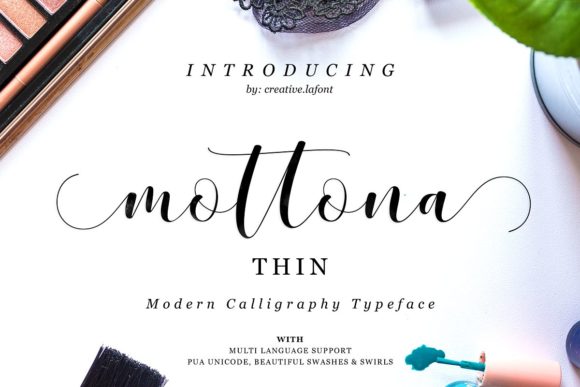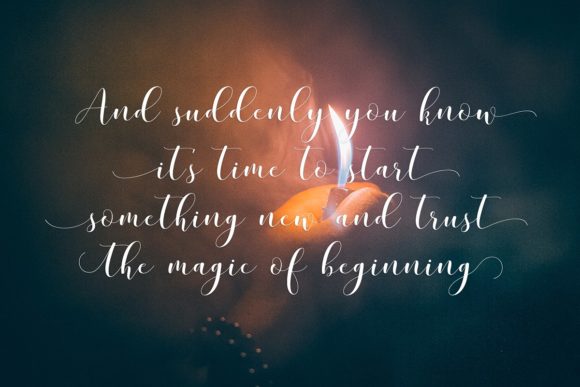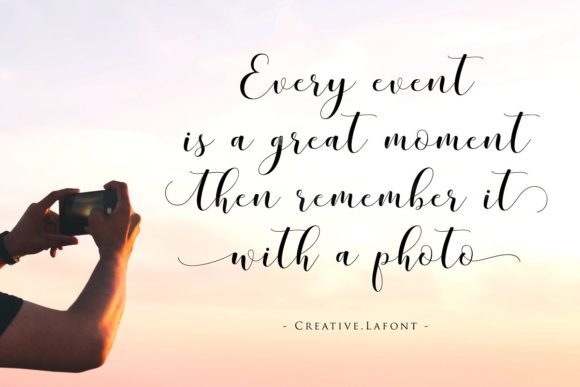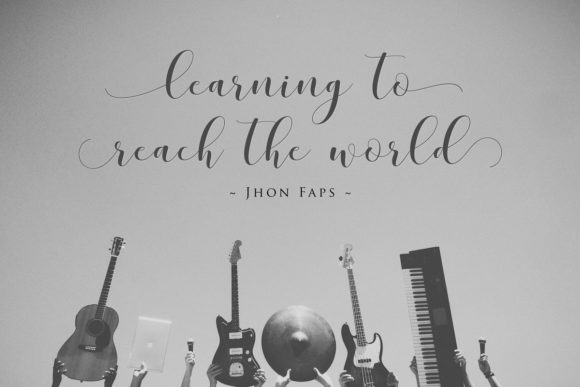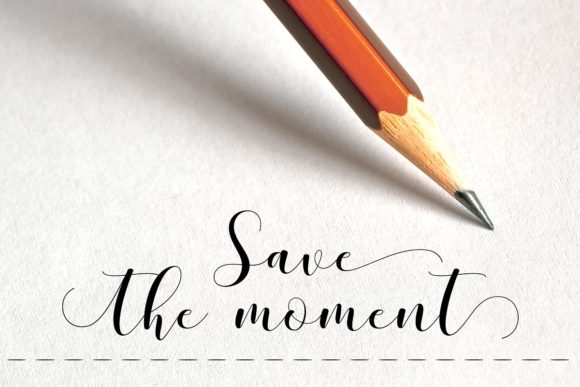
Mottona Thin Script Font
About Mottona Thin Script Font
Mottona Thin Script is modern script font where every single letter has been carefully crafted to make your text look beautiful.